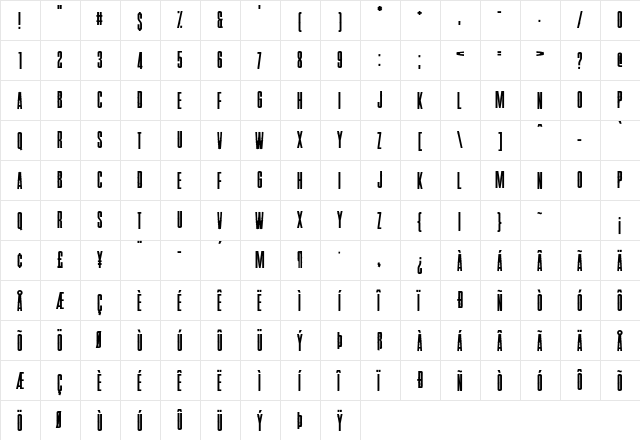
Pride Thusly Regular Font Preview
Pride Thusly Regular
Pride Thusly Regular Font Details
| Designer | Allison JJ |
Design Context for Pride Thusly Typeface
Pride Thusly offers clean, dependable letterforms without strong stylistic allegiance, making it a practical choice for designers who need flexibility.